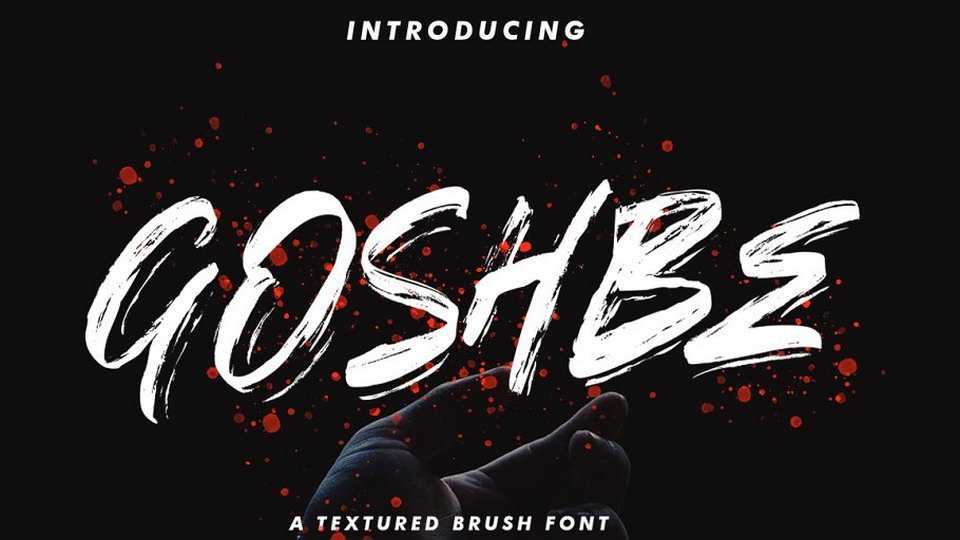
Download Goshbe font, a street-wise brush script bursting, made with extra attention to quick strokes and sharp details. Goshbe is ideal for logos, apparel, T-shirt, hoodie, quotes, product packaging, or anything which needs a typographic turbo-boost.